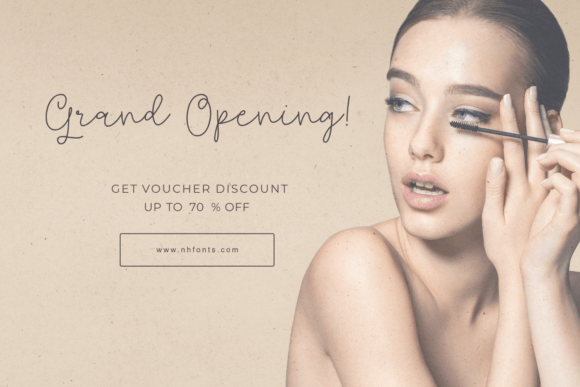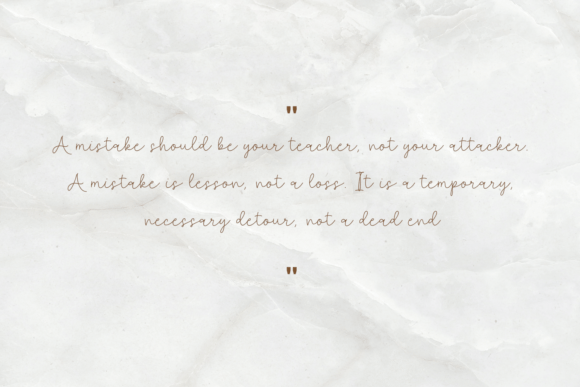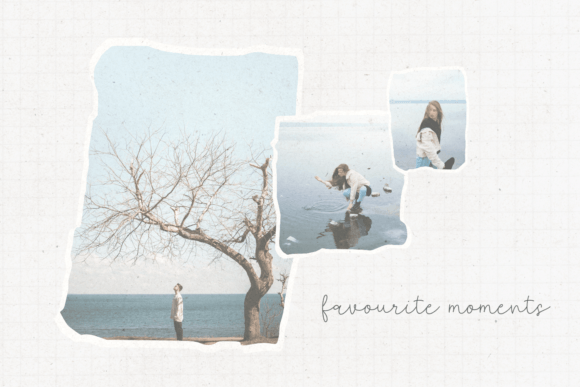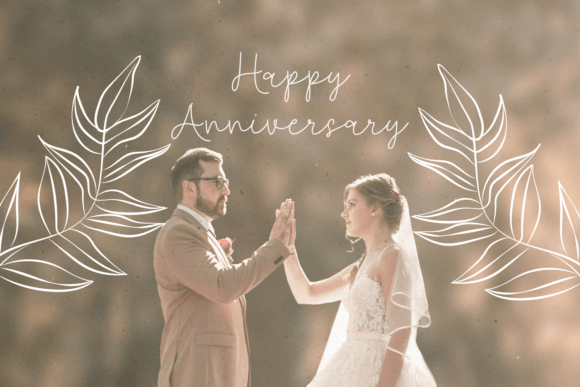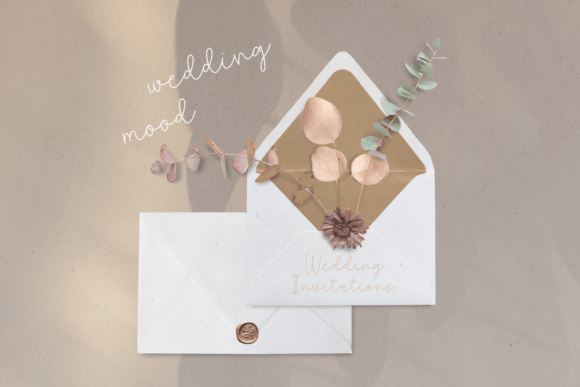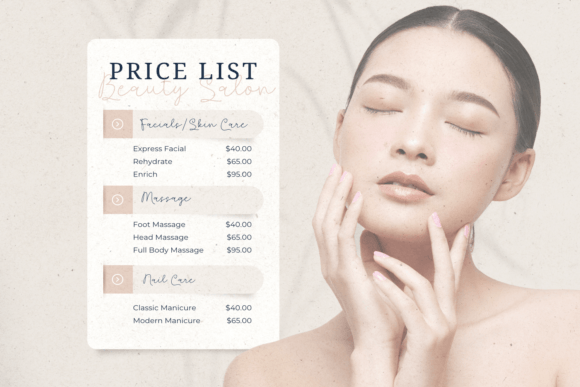
Introduction to Queasily Font
Queasily is a superb single line font that will make your work stand out through its elegant and simple lines.
It is perfect for product packaging, branding project, magazine covers, social media, wedding, or just used to express words above the background .